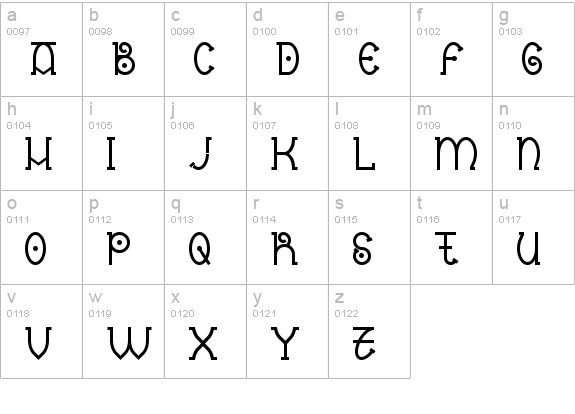
Nantronte Font Details
Nantronte font is a sleek and modern typeface that effortlessly combines elegance with readability. Its clean lines and balanced proportions make it perfect for a wide range of design projects, from branding to editorial. The versatility of Nantronte font allows it to shine in both print and digital mediums, making it a must-have for any designer looking to elevate their work. The best part? Nantronte font is completely free to download at FontsMarket.com. This means you can easily access this stunning font without breaking the bank. Whether you're working on a personal project or a client assignment, Nantronte font will elevate your designs and help you stand out from the crowd. Don't miss out on this amazing opportunity to add Nantronte font to your font collection today!